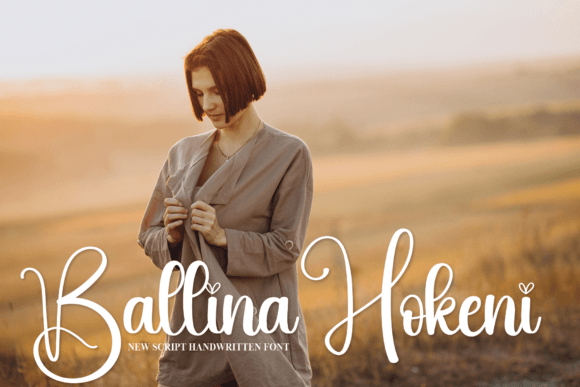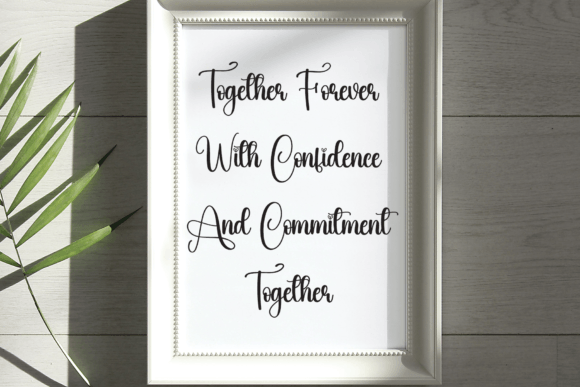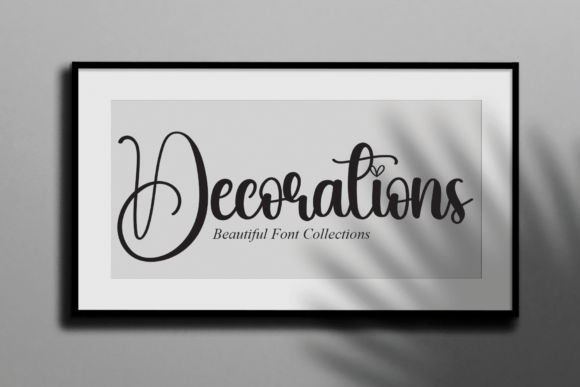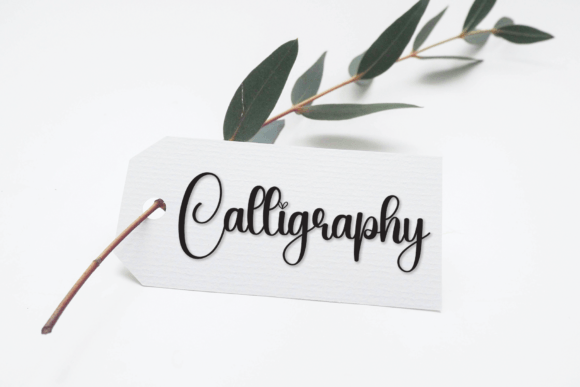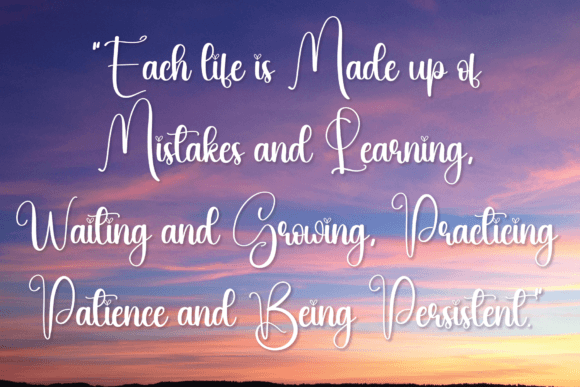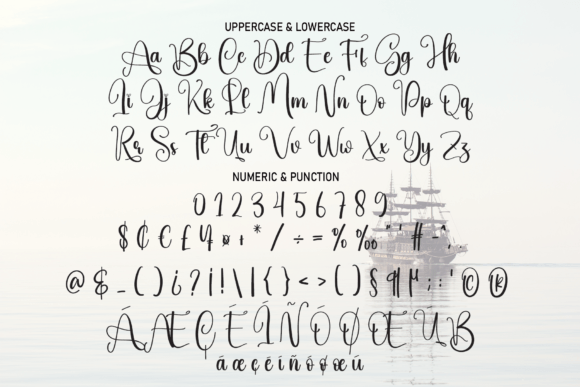
Introduction to Cruise Font
Cruise is a lovely handwritten script font.
With its beautiful rhythm, this font will help you create gorgeous and classy compositions Use it for branding projects, invitations, web graphics, cards, and many more.
Key Features of Cruise Font